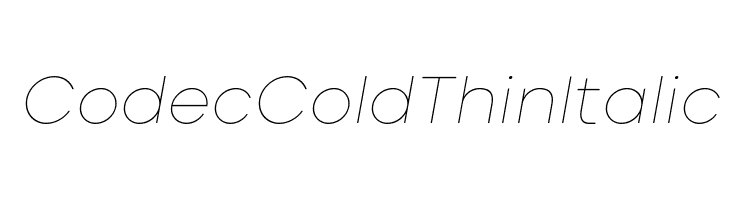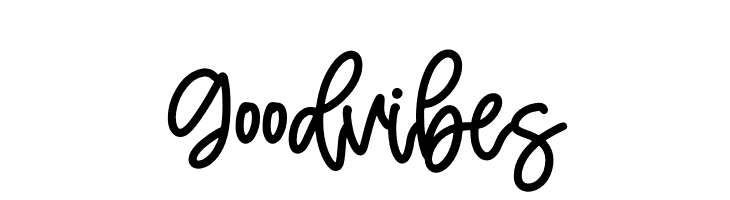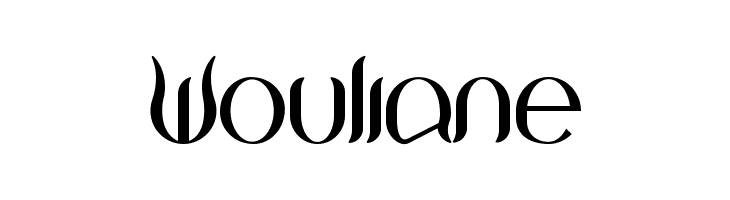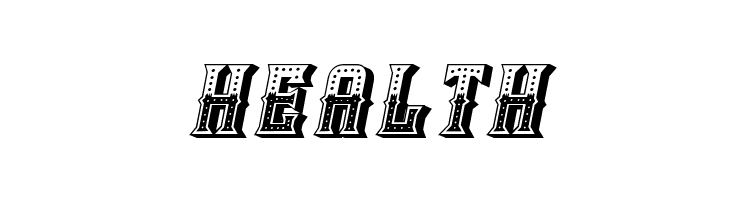
A modern, decorative font with elegant curves and geometric shapes.
A modern, thin, semi-condensed sans-serif font with an elegant italic style.
A playful, hand-drawn font with irregular strokes and a whimsical style.
A bold, pixelated font with a retro, digital aesthetic.
A classic serif font with high contrast and elegant letterforms.
A lively and expressive script font with fluid, dynamic strokes.
A bold, futuristic font with geometric shapes and high contrast, ideal for modern themes.
A lively, handwritten font with bold, flowing strokes and a playful charm.
A bold, distressed font with a playful and rugged aesthetic.